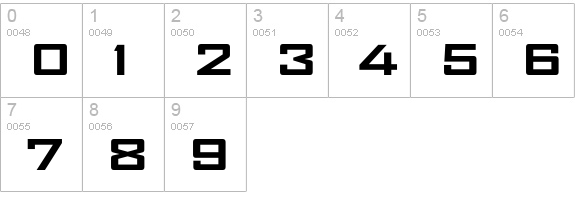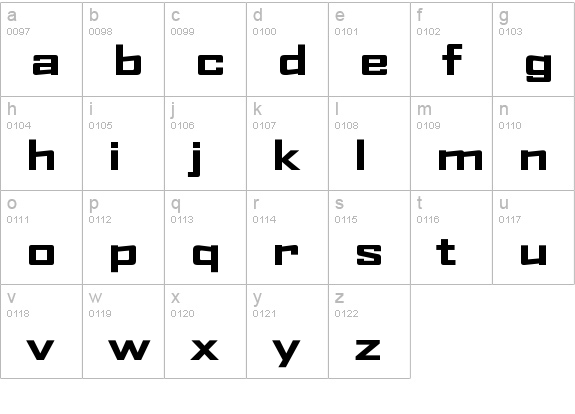
AgencyFB-BoldExtended is a bold and impactful font that exudes power and authority. Its extended style commands attention and makes a strong impression in any design project. The geometric shapes and clean lines of this font give it a modern and professional look, perfect for conveying a sense of confidence and strength. What's even better is that AgencyFB-BoldExtended is available for free download at FontsMarket.com. This means you can easily access this impressive font and use it in your projects without any cost. Whether you're creating a poster, logo, or any other design piece that requires a bold statement, AgencyFB-BoldExtended is the perfect choice. Download it now and elevate your designs with this striking and versatile font.